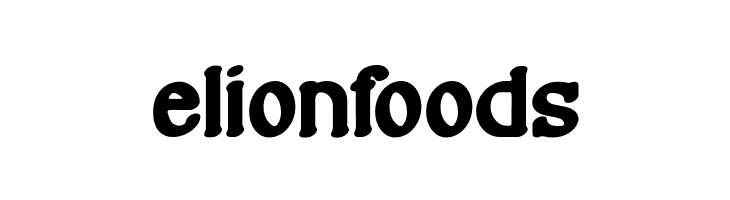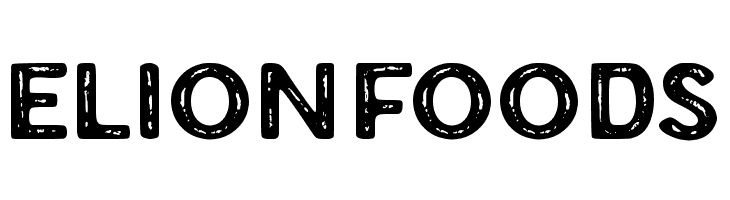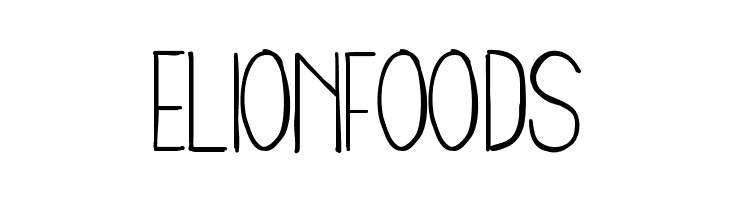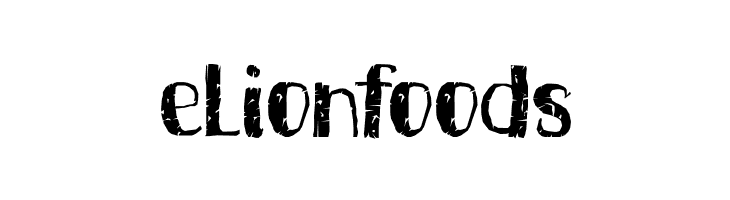
A bold, blocky font with a hand-crafted, modern rustic style.
A nautical-themed, hand-drawn font with angular, rustic characters.
A bold, decorative font featuring integrated deer silhouettes for a rustic, eye-catching design.
A rugged, barbed wire-inspired font with a hand-drawn appearance.
A bold, distressed font with a playful, rustic style.
A bold, organic font with a hand-carved, rustic appearance.
A playful, rustic font with a hand-drawn, textured appearance.
A bold, hand-painted style font with a rustic and organic feel.
A textured, vintage-style font with a rustic, handcrafted appearance.
A bold, hand-drawn font with a rugged, textured style.
A bold, hand-drawn font with a rustic and organic feel.
A bold, distressed font with a vintage, rustic appeal.
A bold, textured font with a rustic, hand-crafted appearance.
A rustic, handwritten font with a brush-like texture and playful style.
A hand-drawn, rustic font with tall, narrow characters and an artistic, organic texture.
A bold, hand-drawn font with a rustic and organic feel.
A rustic, woodblock-inspired font with an organic and textured appearance.
A bold, textured font with a hand-painted, rustic style.
A bold, rough-textured font with a hand-drawn, rustic appearance.
A bold, textured font with a hand-drawn, rustic appearance.
A playful, textured font with a hand-drawn, rustic charm.
A bold, brush-style font with a rustic, distressed texture.
A bold, playful font with a hand-carved, rustic appearance.
A hand-drawn, artistic font with irregular, organic lines and a rustic feel.
A bold, distressed font with a rustic, hand-crafted appearance.
A rustic, hand-drawn font with uneven, textured strokes.
A bold, distressed font with a rustic, vintage feel.
A rustic, distressed font with a vintage, hand-drawn appearance.
A bold, textured font with a hand-painted, distressed look.
A decorative font with characters enclosed in barn-like structures, ideal for rustic themes.
A bold, textured font with a rugged, vintage feel.